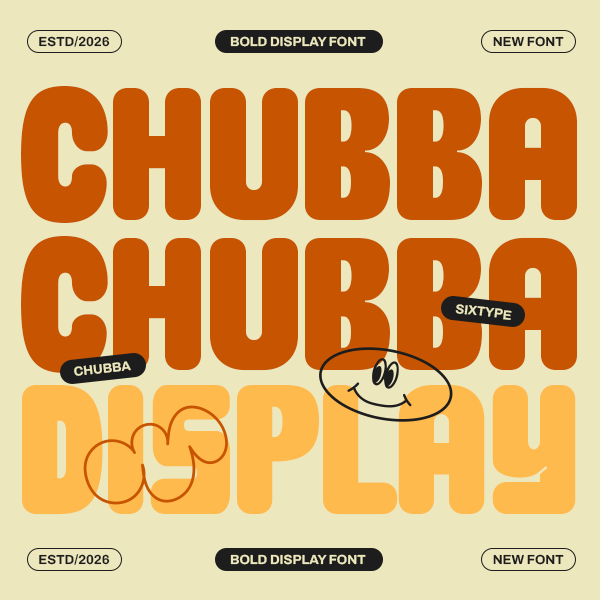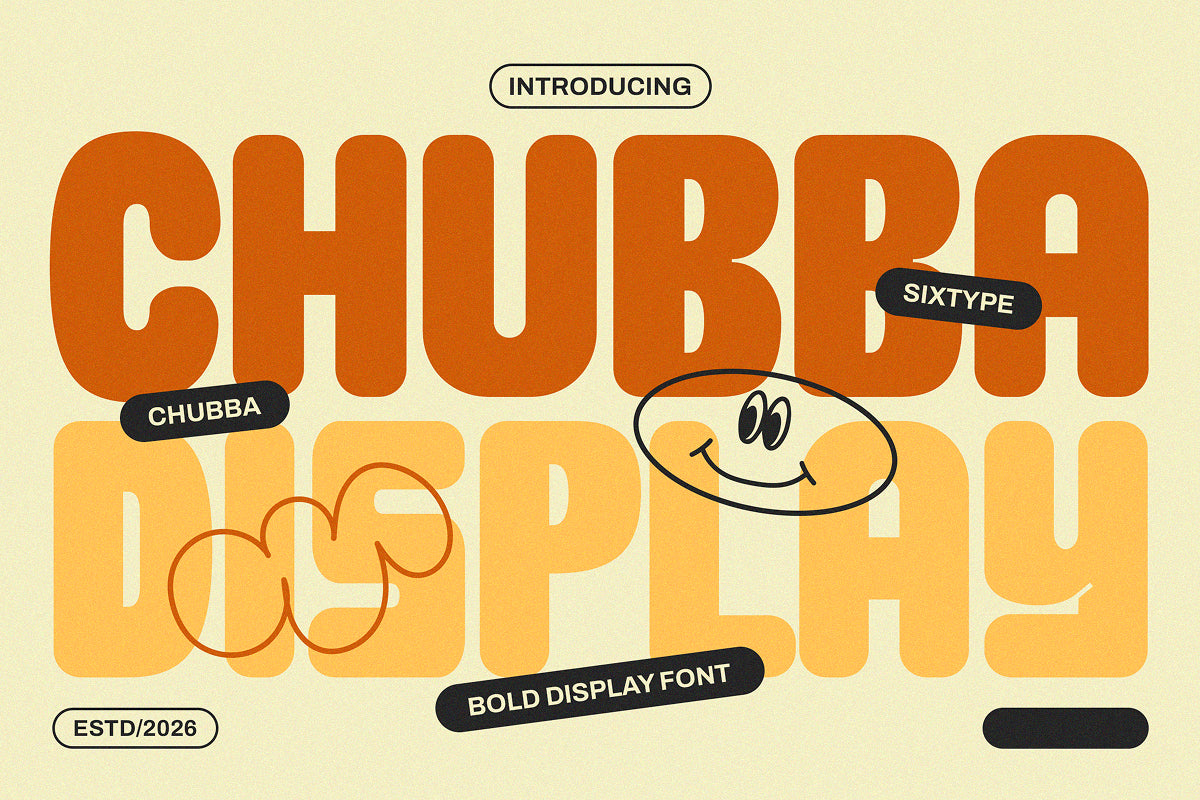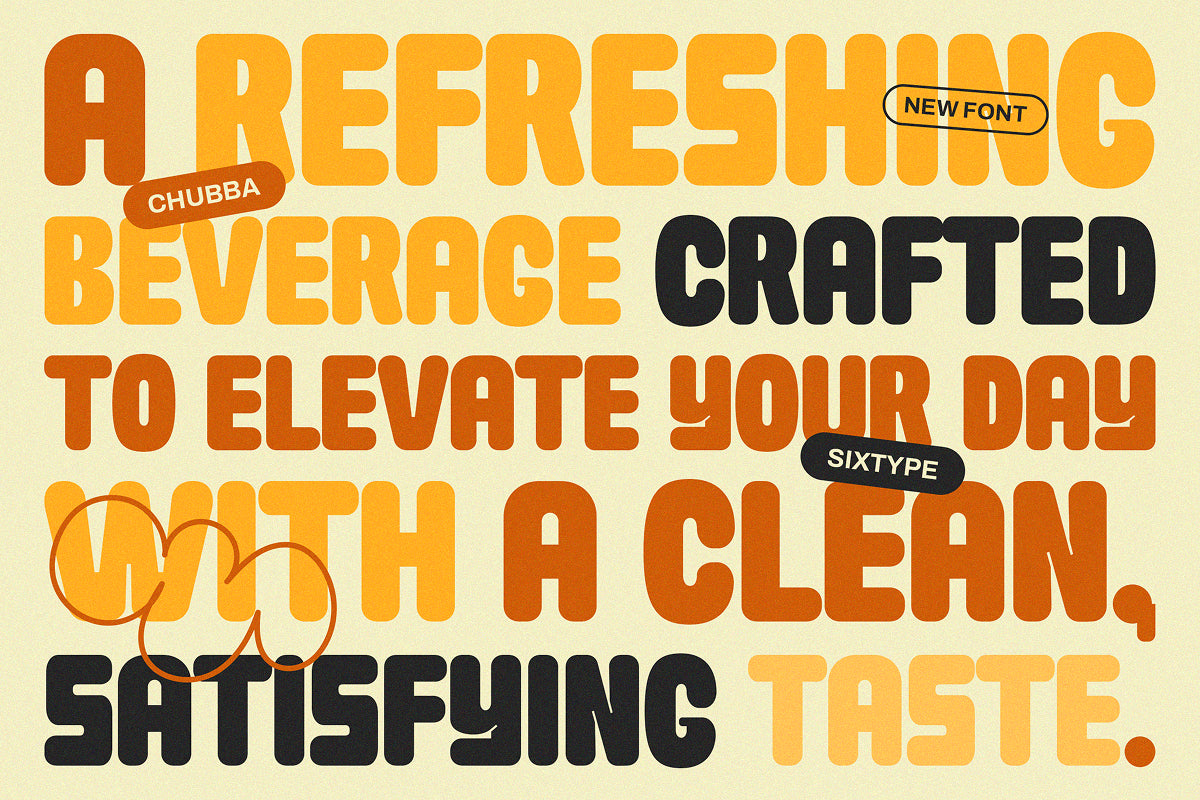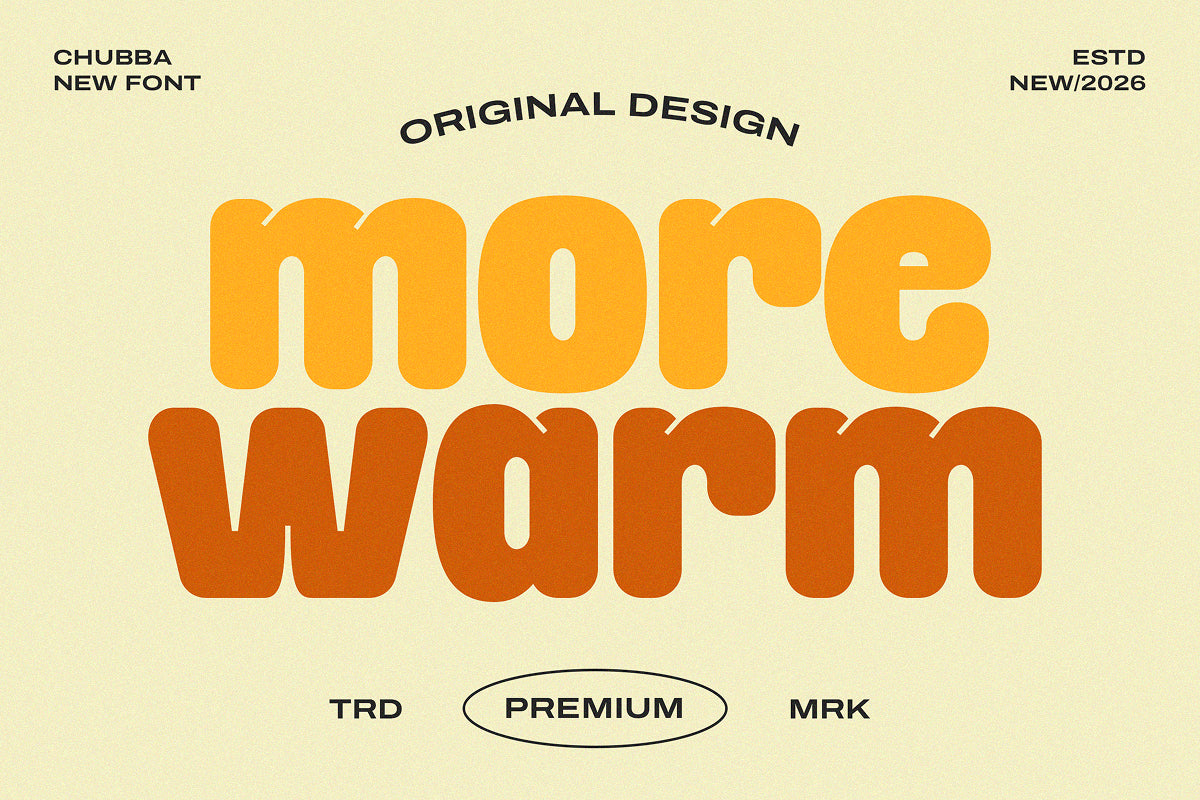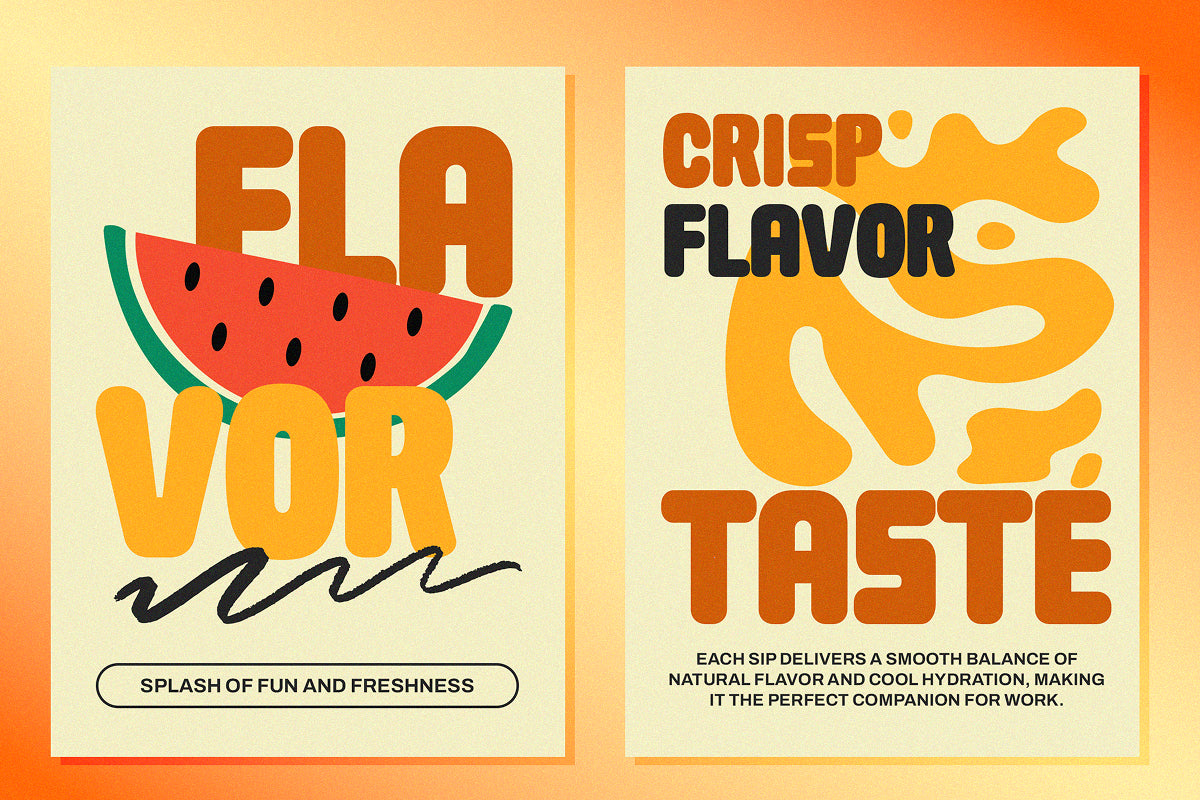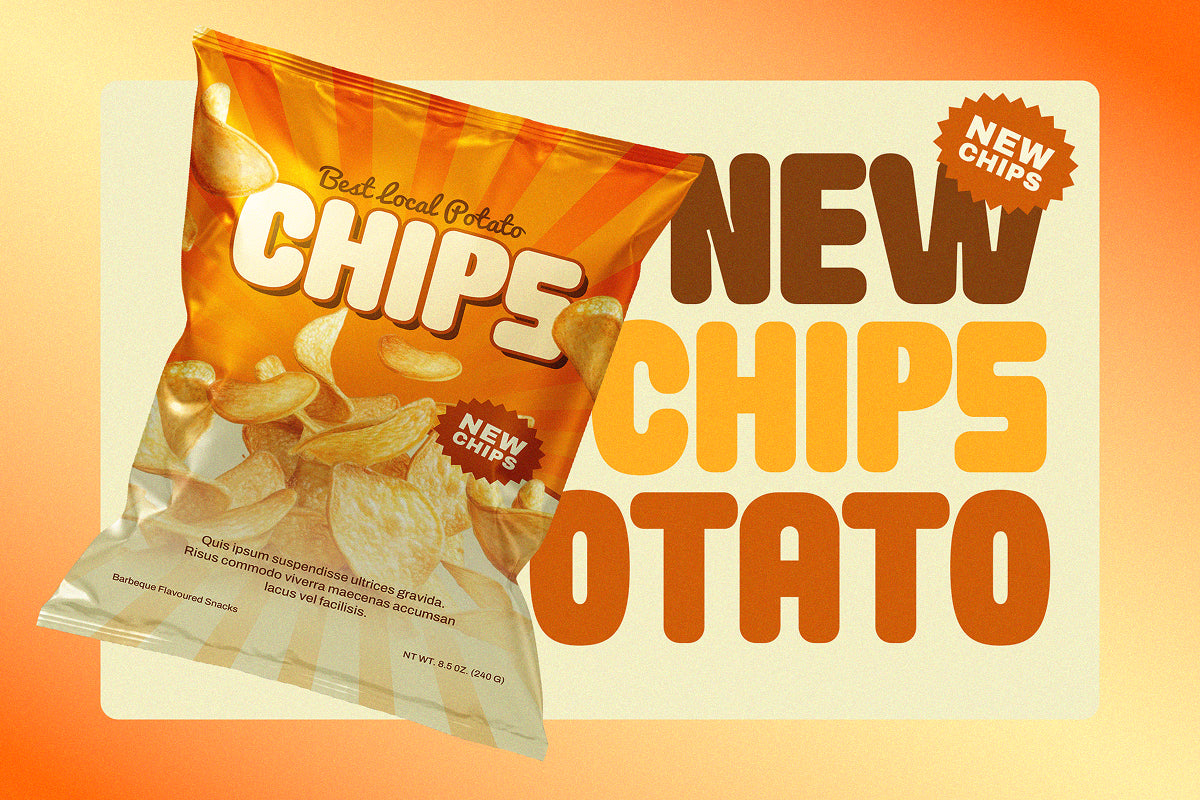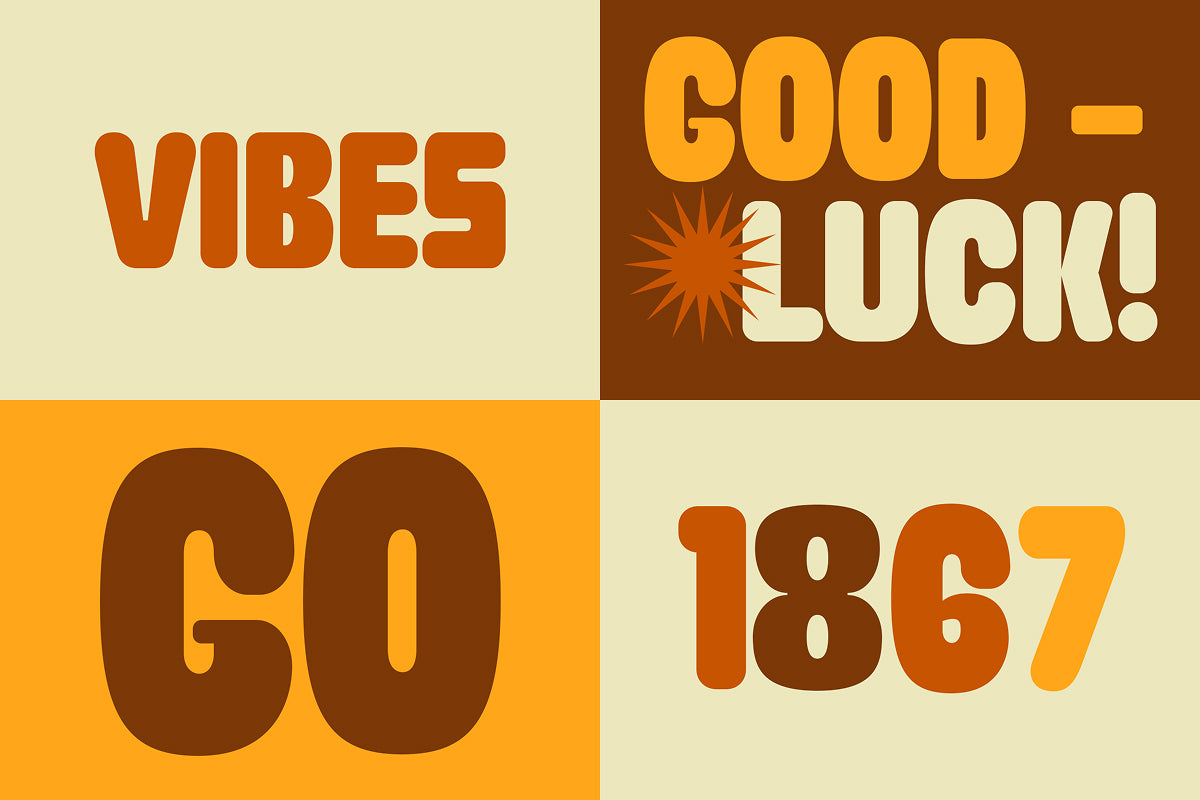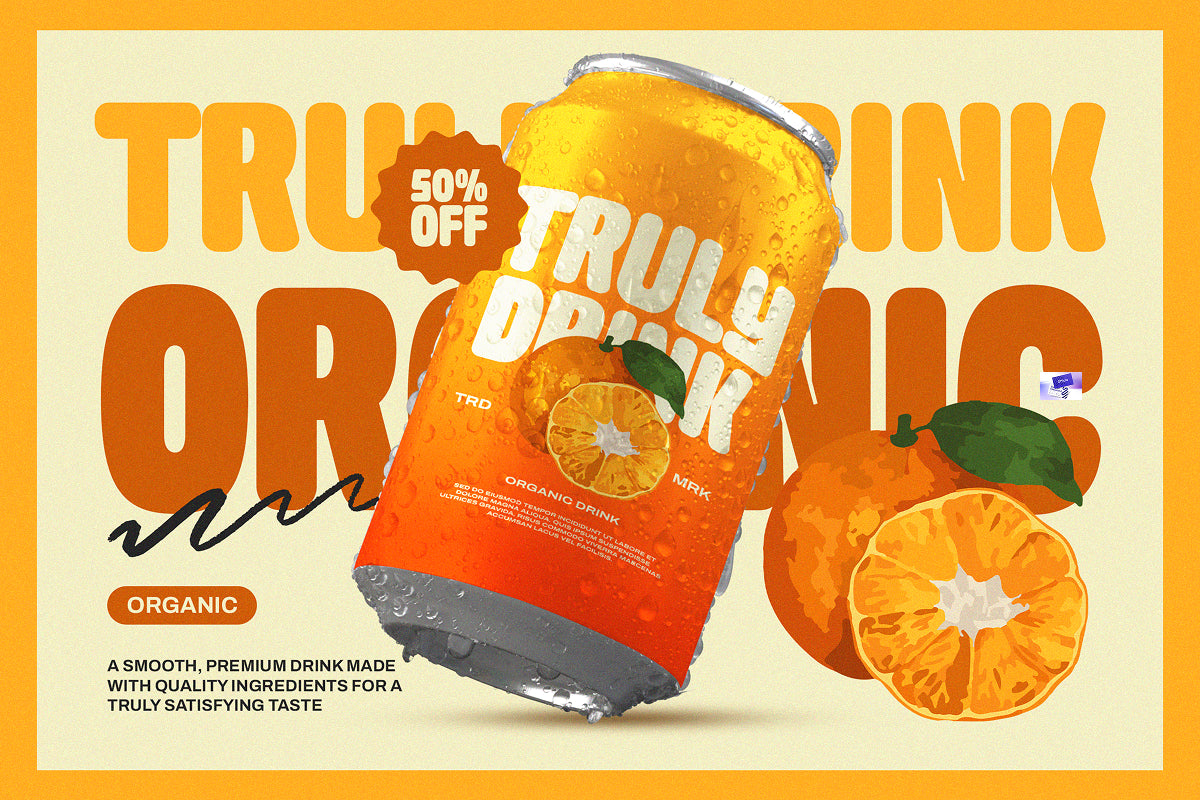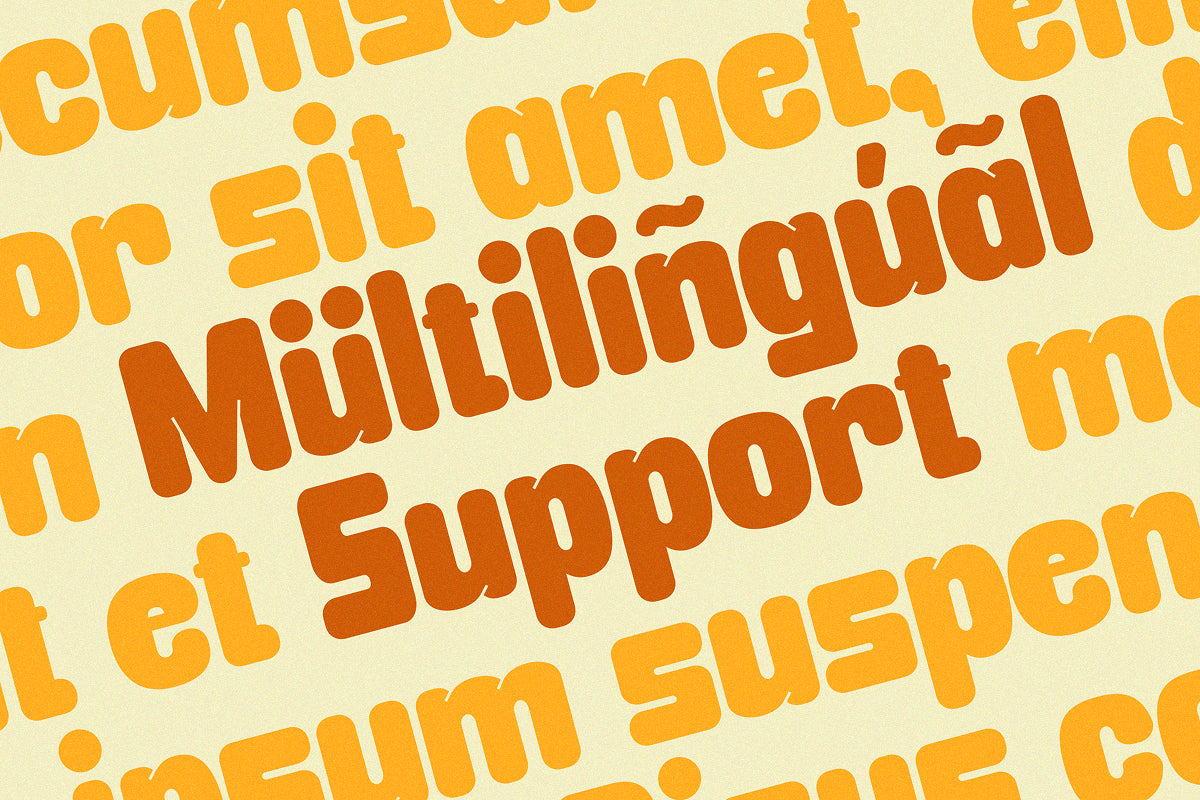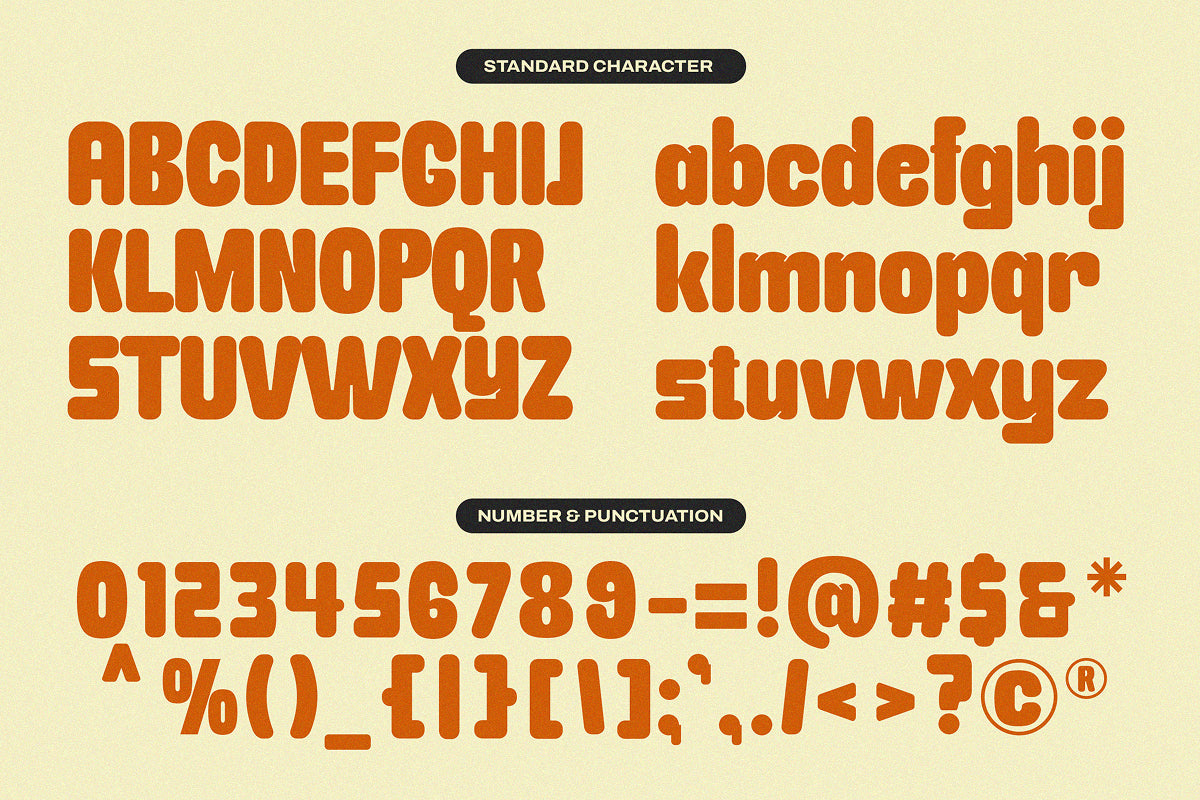
Chubba Bold Display Font
Chubba is a bold, rounded display font, built with thick, chunky strokes and softened corners that give it a playful, friendly presence. The letterforms lean toward the oversized and squishy, the kind of shape that feels bouncy and approachable rather than sharp or formal. It's a font built to be seen, not tucked away in a paragraph.
That chunky character is where Chubba does its best work. Set large, it carries a fun, energetic tone that suits anything wanting to feel warm and a little playful rather than polished and corporate. The rounded terminals keep it from feeling heavy despite the bold weight, so it stays inviting even at large sizes.
Picture Chubba spelling out a kid's birthday party invite, stamped across a sticker or badge design, or heading up a playful social media graphic. That's where its personality really lands.
Chubba suits children's branding and party invitations, sticker and badge design, packaging for playful or novelty products, social media graphics, and any headline that wants to feel fun and approachable rather than serious.